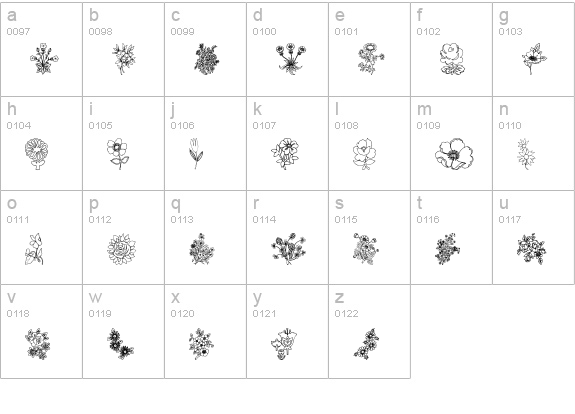
In my garden font is a delightful and whimsical typeface that brings the beauty of nature right to your fingertips. With its playful curves and organic shapes, this font captures the essence of a blooming garden, radiating a sense of joy and tranquility. Each letter of In my garden font is meticulously crafted, showcasing intricate details reminiscent of delicate petals and leaves. The flowing strokes and gentle curves give the font a soft and inviting appearance, making it a perfect choice for projects that aim to evoke a sense of warmth and natural beauty. Whether you're designing a greeting card, creating a logo for a floral shop, or adding a touch of whimsy to your website, In my garden font will effortlessly enhance your design. Its versatility allows it to be used for both headlines and body text, ensuring that your message is conveyed with charm and elegance. The best part? In my garden font is freely available to download at FontsMarket.com. This means you can easily access this delightful typeface and use it in all your creative endeavors, without any cost. So go ahead, unleash your imagination and let In my garden font bring a breath of fresh air and a hint of floral magic to your designs.